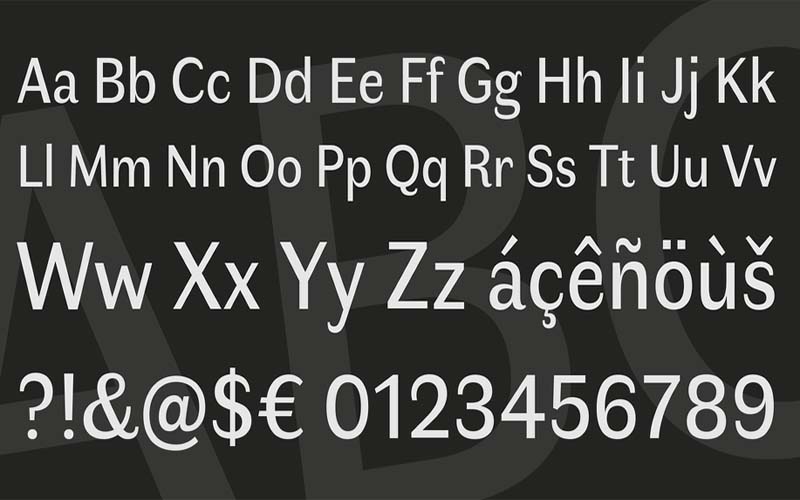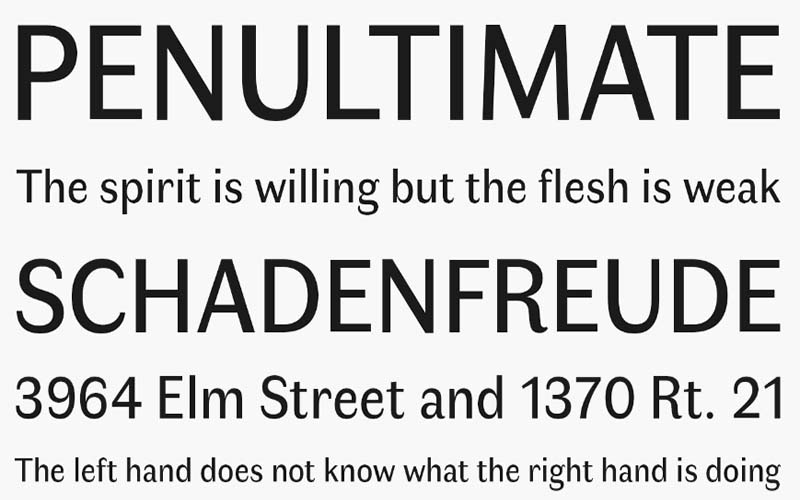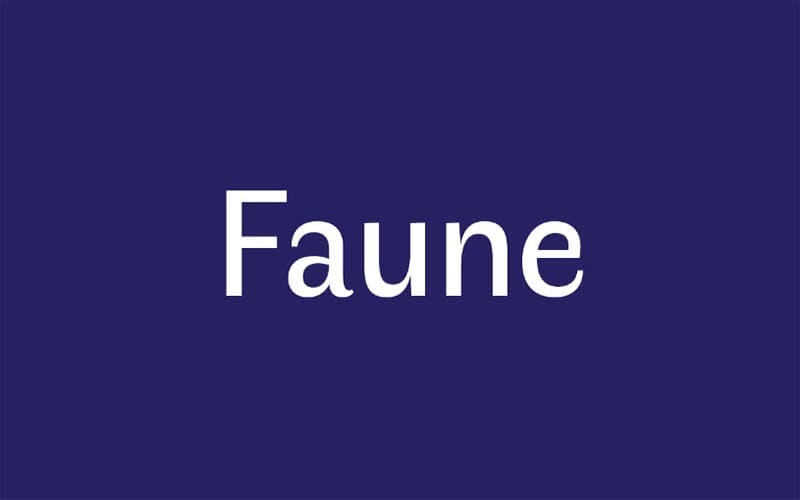
Faune Font is a sans serif font that has a clean and clear appearance. This font family is designed in French type. Faune is an original typeface family commissioned by the French Centre National des Arts Plastiques (French Ministry of Culture) in partnership with Imprimerie Nationale.
The family includes six versions including display black, display bold italic, display thin, text bold, text italic, and text regular. With a unique look, this font gained great popularity in just a few days.
This font family has been carefully crafted to maintain a natural look. The designer created all the words with his own hands and then converted them into digital form.
You can use it in any way such as official use as well as stylish use. That is why its scope has grown so much in the design industry. Because it will be designed according to the needs of the designer.
So, now everyone can easily use it for different tasks. Because it can be used alone and in combination with others. Moreover, this remarkable font has support for several languages.